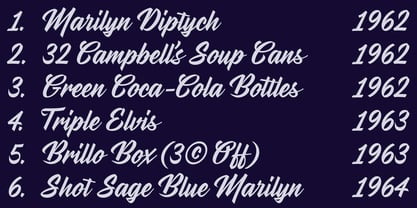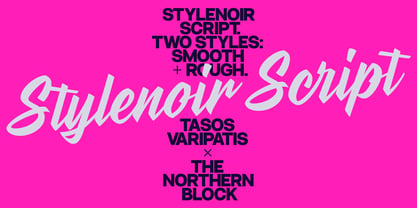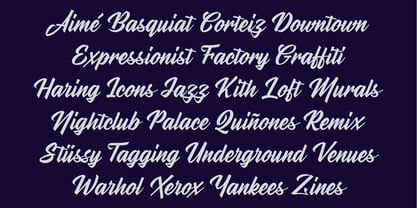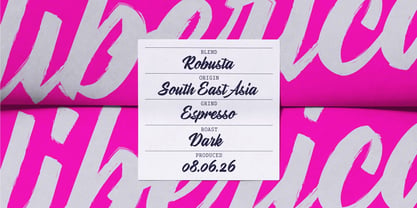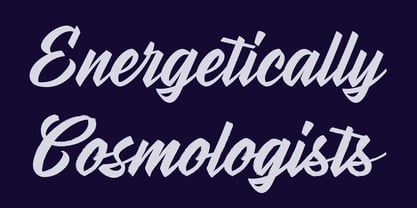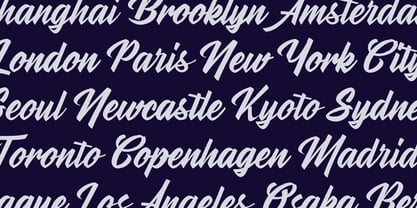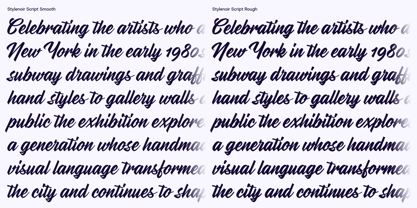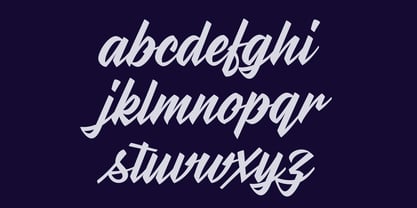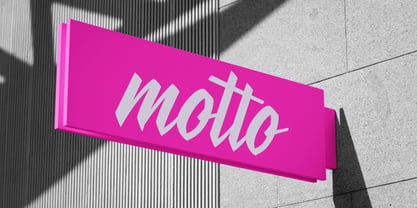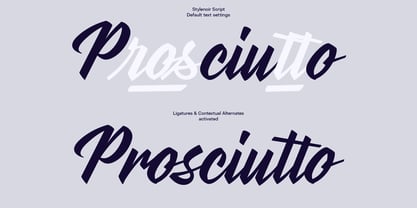
Stylenoir Script
by The Northern Block
The Stylenoir Script Font Family was designed by Tasos Varipatis and published by The Northern Block. Stylenoir Script contains 2 styles and family package options. More about this family
Stylenoir Script is a contemporary display script inspired by hand-painted signage, brush lettering, and urban graffiti culture. Rather than drawing on nostalgia, it reflects the ongoing evolution of lettering by combining traditional craftsmanship with the vibrant energy of street graffiti.
The type family includes two versions: Smooth and Rough. Smooth offers a refined, polished look with clean lines while maintaining expressive movement and handwritten rhythm. Rough emphasises the raw quality of brush lettering through textured edges, subtle imperfections, and organic irregularities, recreating the appearance of lettering made with a dry brush or marker. Together, these styles allow the typeface to adapt to both contemporary layouts and more tactile, character-driven applications.
Spacing, letter connections, and visual rhythm were carefully considered to ensure a strong visual impact. Contextual and stylistic alternates, discretionary ligatures, and alternate connecting forms allow the script to capture the organic unpredictability of real brush lettering while maintaining consistency across modern print and digital environments.